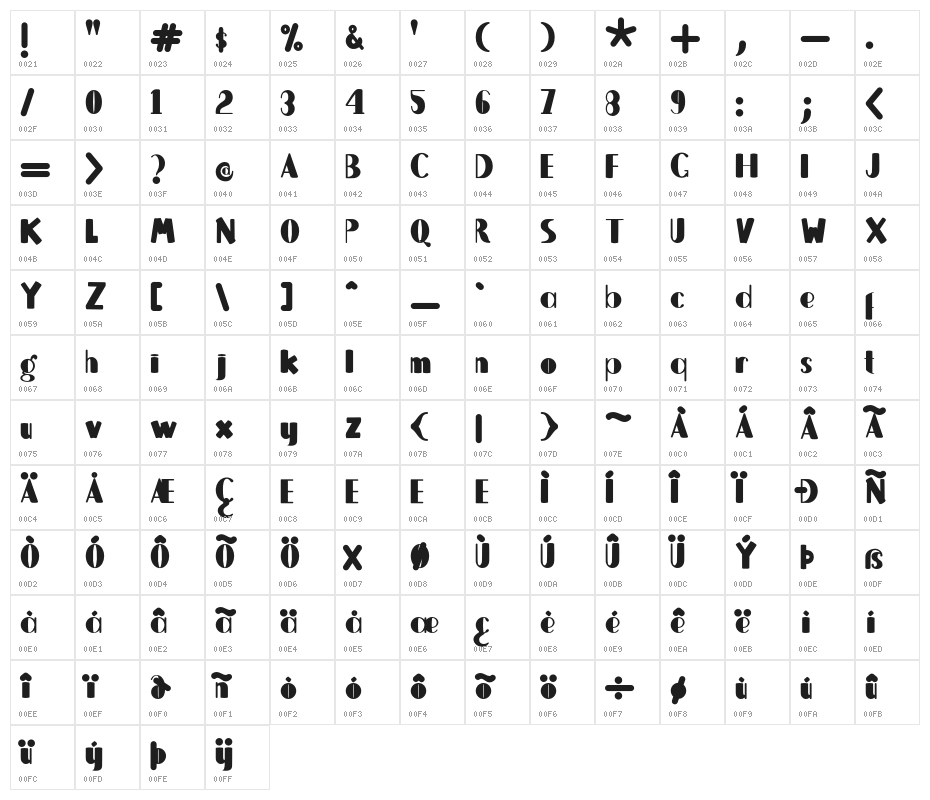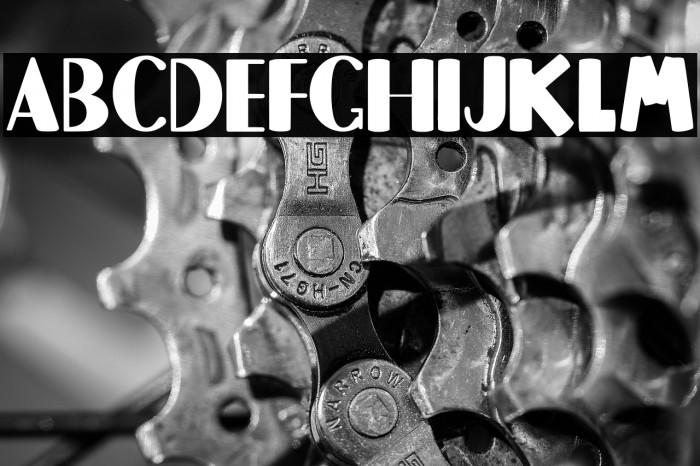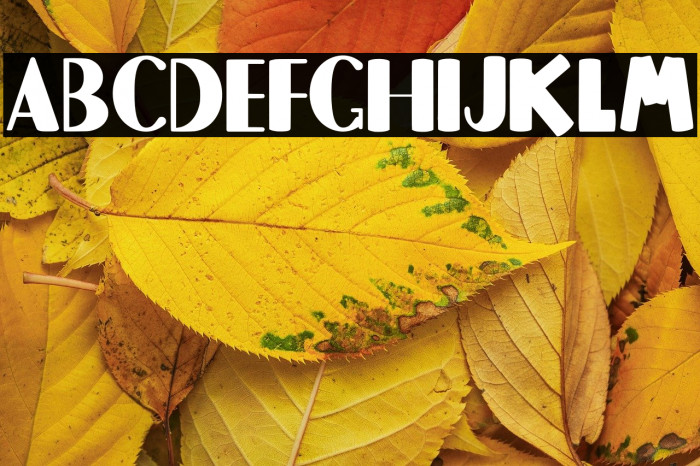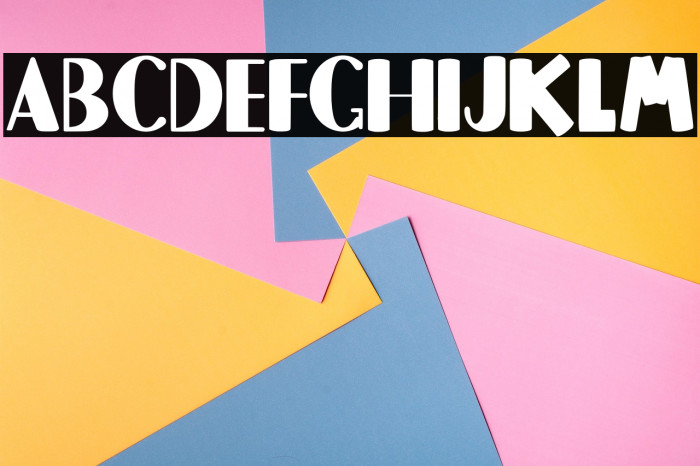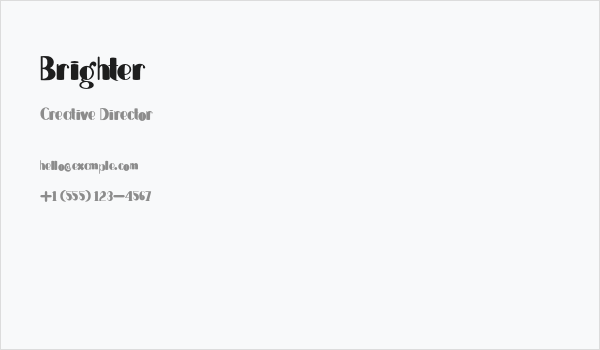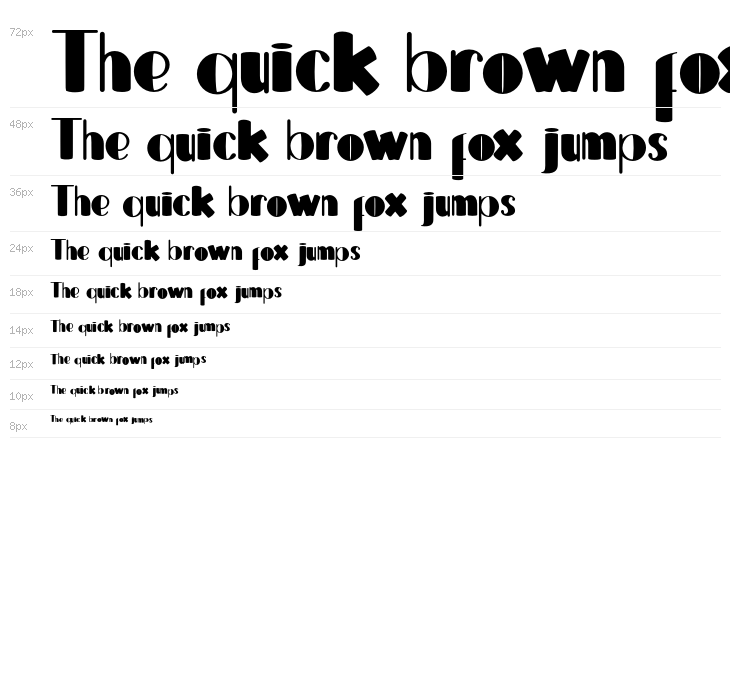
Brighter Font
Brighter Description
This font features a bold and playful design with a unique blend of geometric and organic shapes. The uppercase letters are characterized by their thick, solid strokes and rounded edges, creating a strong visual impact. The lowercase letters maintain a similar style, with some characters exhibiting distinctive curves and angles that add to the font's quirky personality. The numerals are equally bold, with a consistent weight that matches the alphabet. Special characters are creatively designed, enhancing the font's overall playful and modern aesthetic.